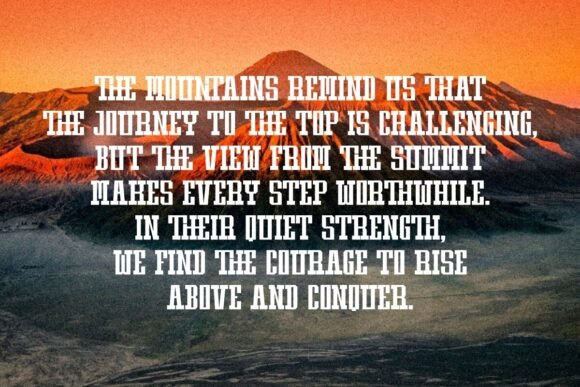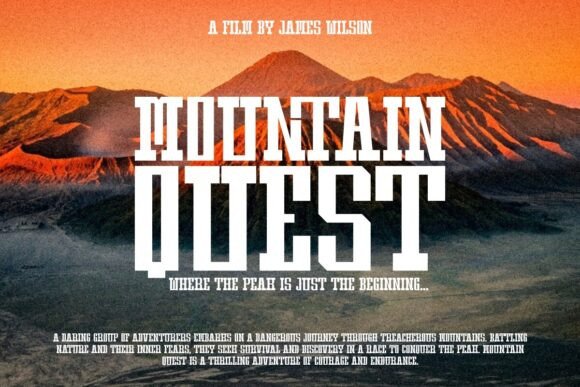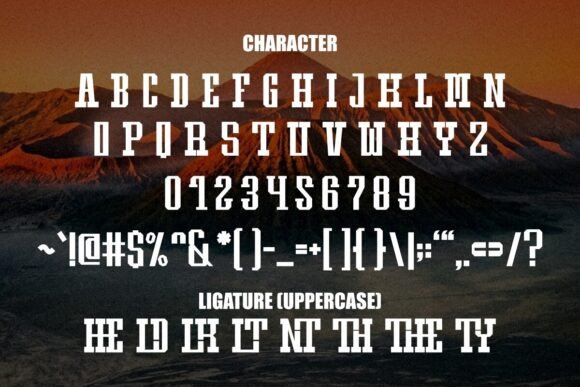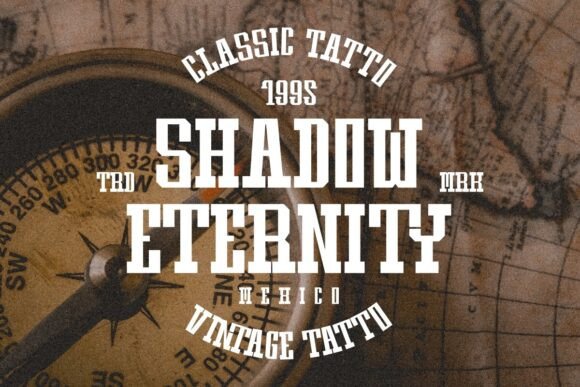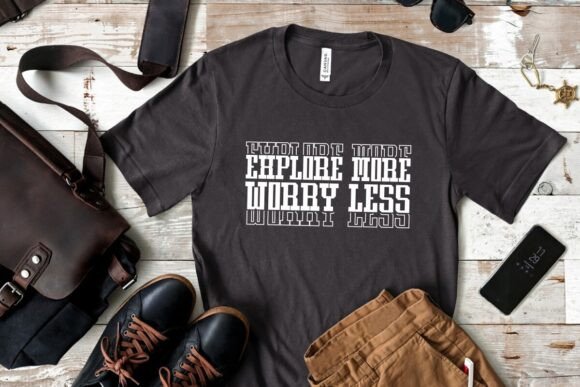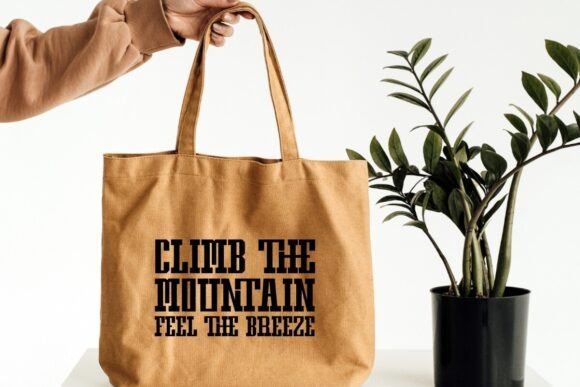
Introduction to Mountain Vector Font
Have you ever stumbled upon a design that transports you to a winter wonderland, surrounded by snow-capped mountains and the magic of the holiday season? For designers, this feeling is often sparked by the perfect font, one that not only captures the essence of adventure but also adds a touch of nostalgia and festivity to our creative projects.
Enter the Mountain Vector Font, a timeless and versatile classic that embodies the spirit of the great outdoors and the joy of the holiday season. With its bold, slab-serif style, this font is perfect for quotes, movie posters, branding logos, and apparel mockups – think t-shirts, mugs, tote bags, and pillows. Its high-quality design and transparent background make it a valuable resource for any designer looking to add a rustic and festive touch to their work.
Key Features of Mountain Vector Font
- High-quality vector design for a creative project, ideal for use as a design resource.
- Transparent background for easy integration into various design elements.
- Vector format ensures scalability and crisp resolution at high zoom levels.
- Unique characteristics include a modern, minimalist design style and a wide range of applications in branding, advertising, and editorial design.
Honest Review: Mountain Vector Font
I recently had the chance to work with the Mountain Vector Font, and I must say it’s been a game-changer for my creative project. The high quality of the font is immediately apparent, and its versatility makes it perfect for a wide range of designs.
- ✨ High-quality design: The Mountain Vector Font is crisp and clear, making it ideal for both digital and print projects.
- ✨ Transparent background: This feature allows for seamless integration with any design element, giving you complete creative control.
- ⚠️ Limited character set: The font only includes a limited set of characters, which may not be suitable for projects that require a wide range of symbols.
- ⚠️ Not ideal for small text: Due to its vector nature, the font may not be the best choice for small text sizes, as it can become difficult to read.
Overall, I’m impressed with the Mountain Vector Font. Its high quality and versatility make it a valuable addition to any design resource library. While it may have some limitations, I believe it’s well worth the free download – especially for designers working on creative projects that require a unique and stylish touch.
The Mountain Vector Font is a high-quality design resource that offers a transparent background, making it perfect for creative projects. This font is available for free download and can be used in a variety of applications, including digital and print media.
Tips for Getting the Most Out of Mountain Vector Font
To get the most out of the Mountain Vector Font, use it in conjunction with other design elements, such as images and graphics, to create a visually appealing design. Experiment with different font sizes and colors to find the perfect combination for your project.
The Mountain Vector Font is commonly used in a variety of creative projects, including logos, brochures, and business cards. Its high-quality design and transparent background make it perfect for use in digital and print media.
Is the Mountain Vector Font suitable for use on a website with a dark background?
Yes, the Mountain Vector Font is designed to be highly legible, even on dark backgrounds. The font’s high contrast and clean lines make it an excellent choice for use on websites, social media, and other digital applications. Simply ensure that the font size is large enough to be easily readable, and you’re good to go.